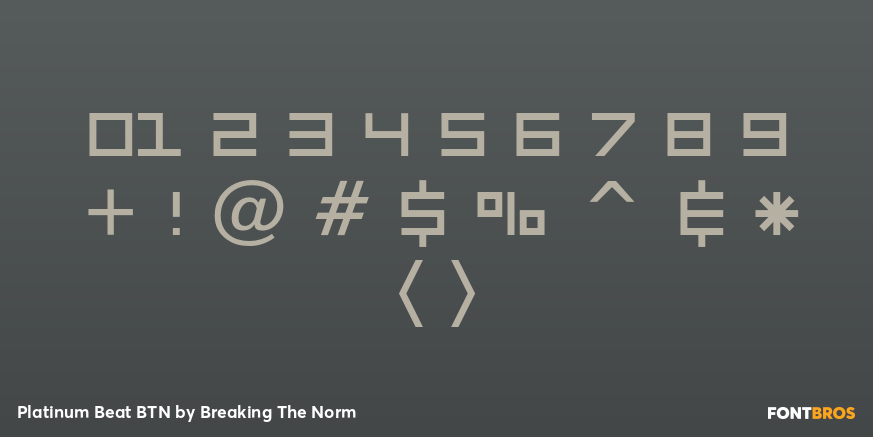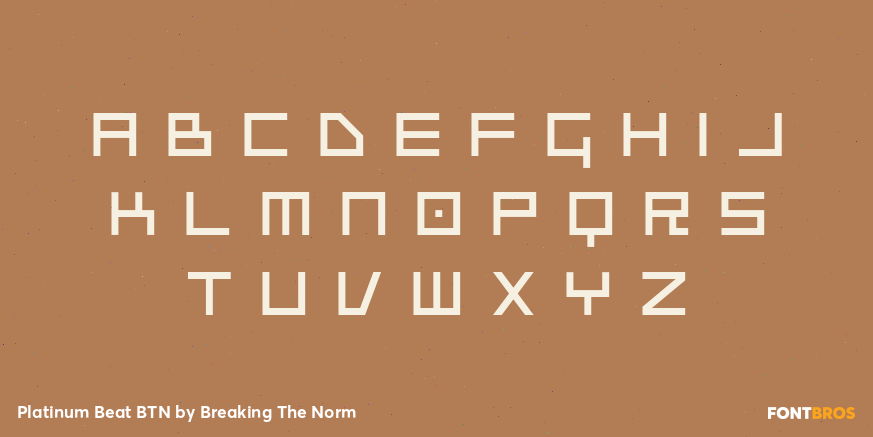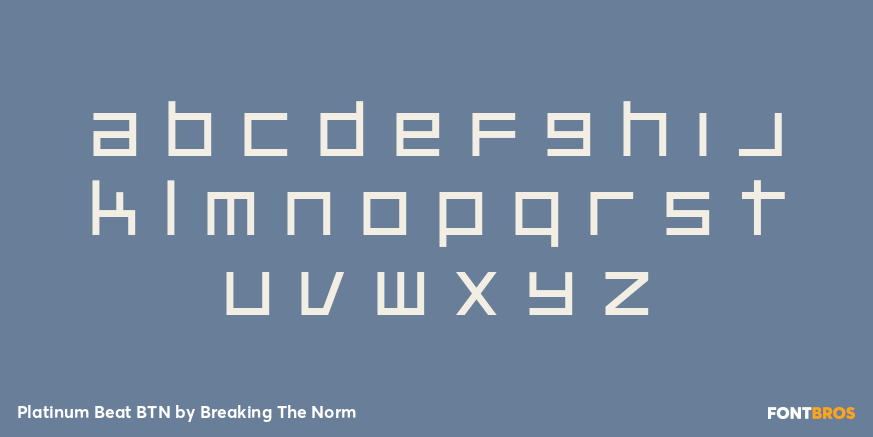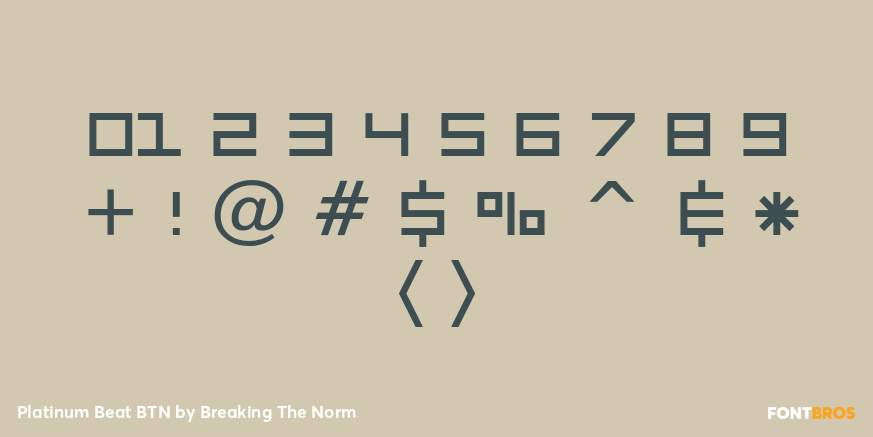
Platinum Beat BTN
Font Family by Breaking The Norm
Platinum Beat BTN is a tough geometric techno display family with a hard-edged, industrial personality. Its structured forms give it a strong futuristic presence, making it well suited for posters, gaming graphics, music branding, packaging, signage, and technology-driven design. The family’s Regular style provides a solid foundation, while the Outline, Raised, and Chiseled variants expand its range for more dimensional and metallic-looking display work. Platinum Beat BTN is a strong choice for projects that need a bold digital-era voice with sharp visual impact.